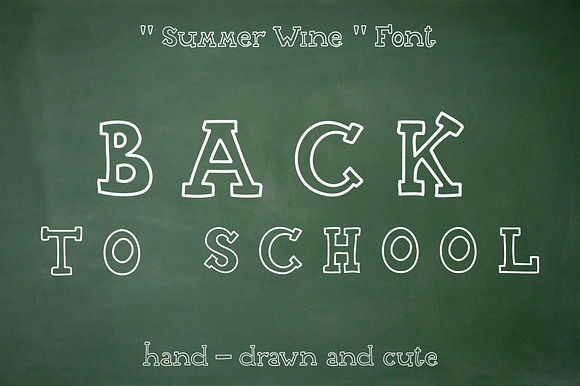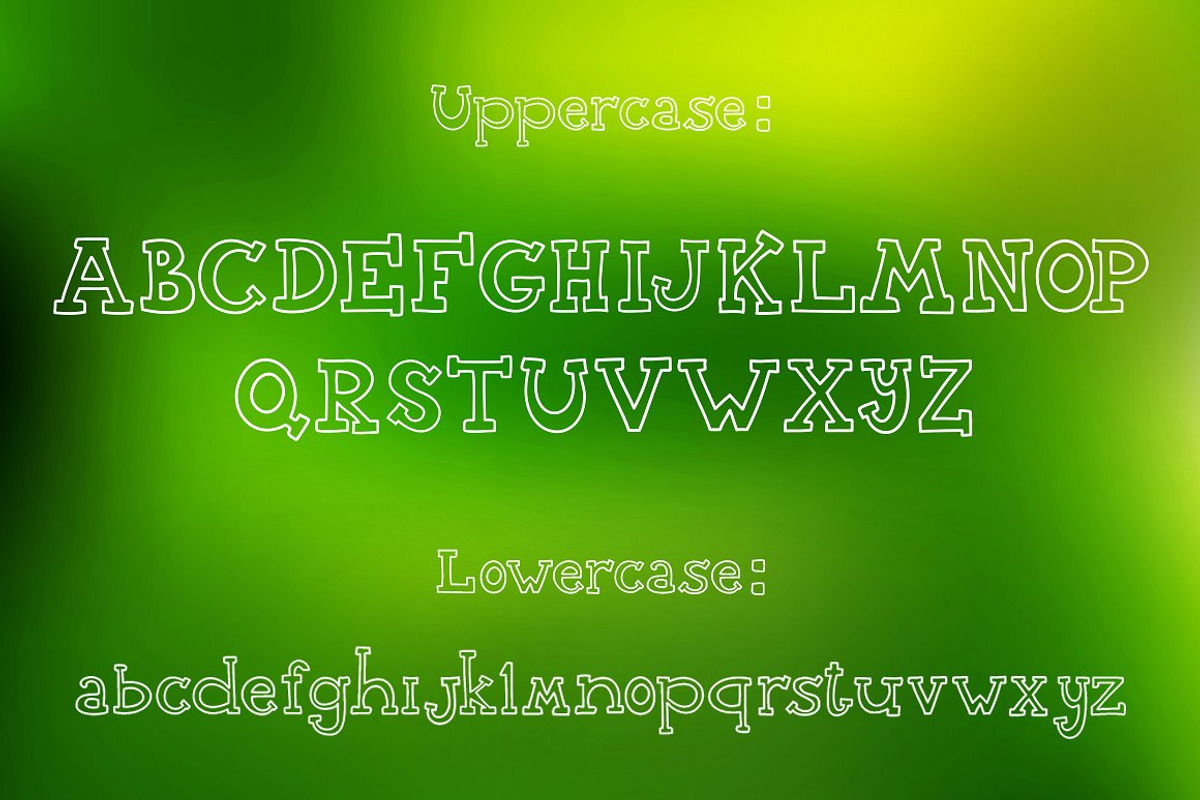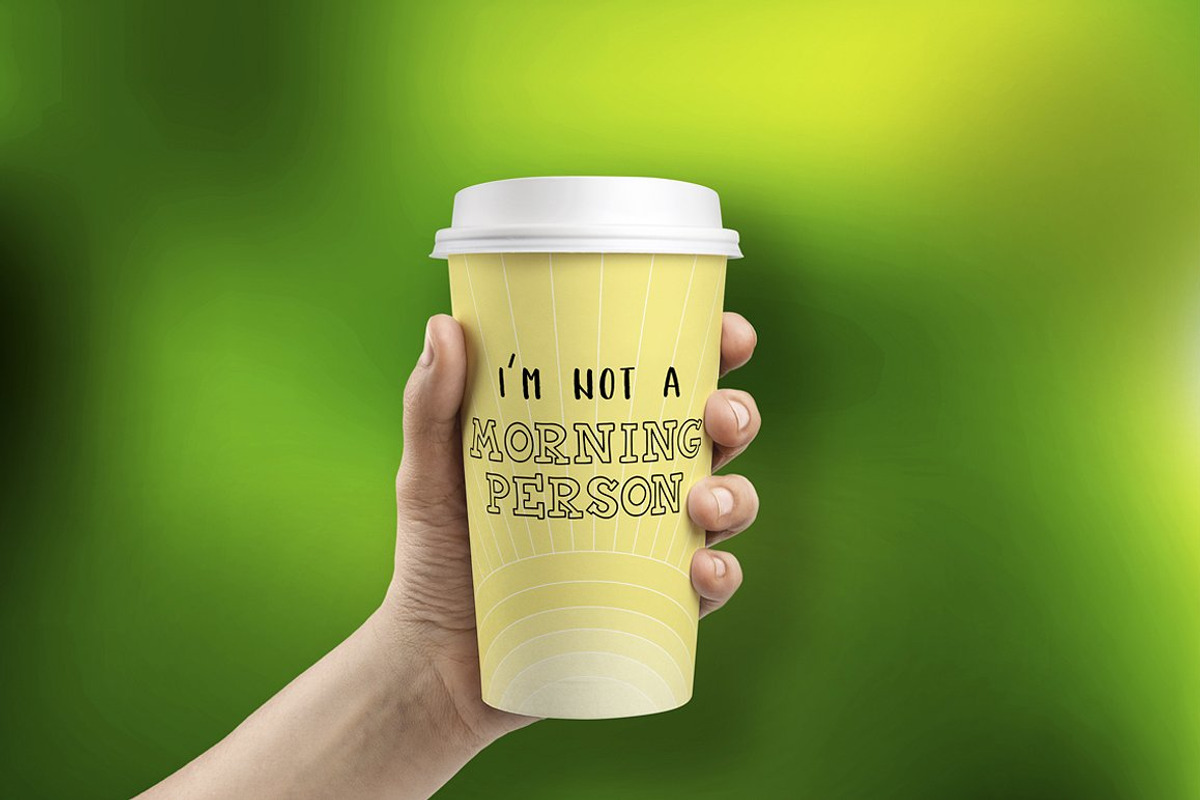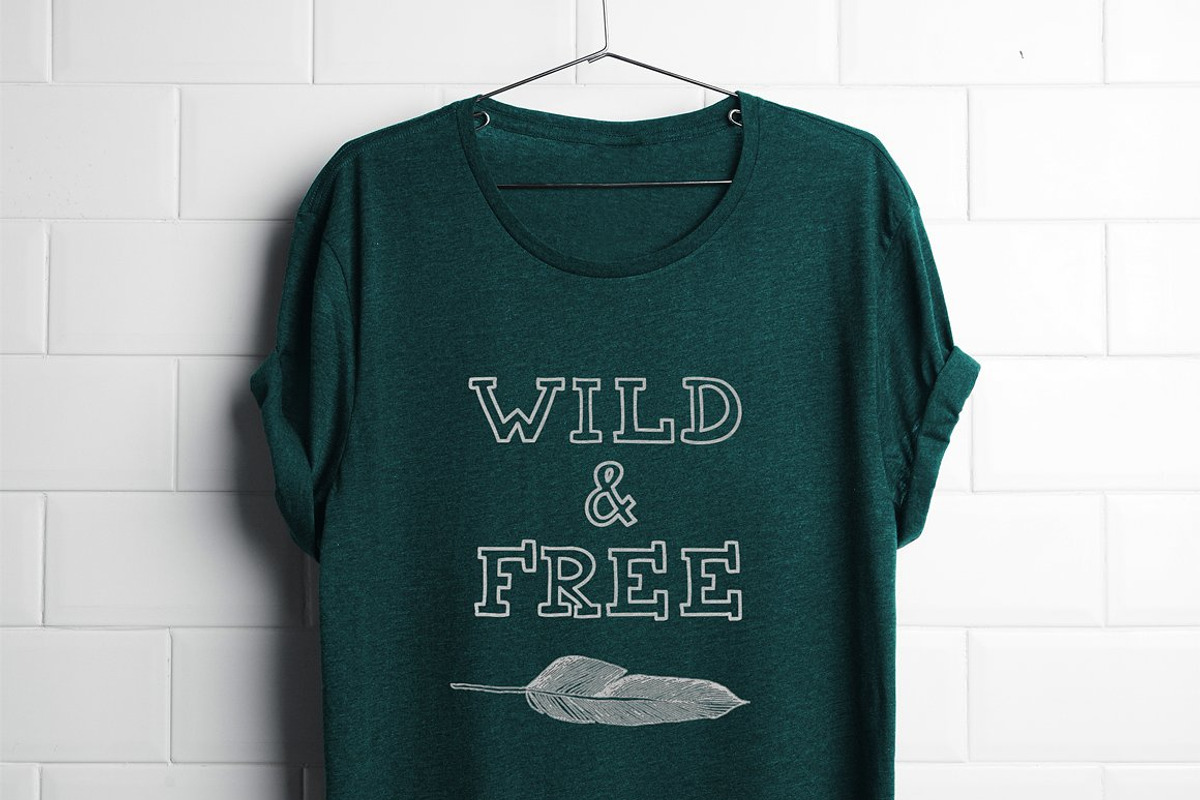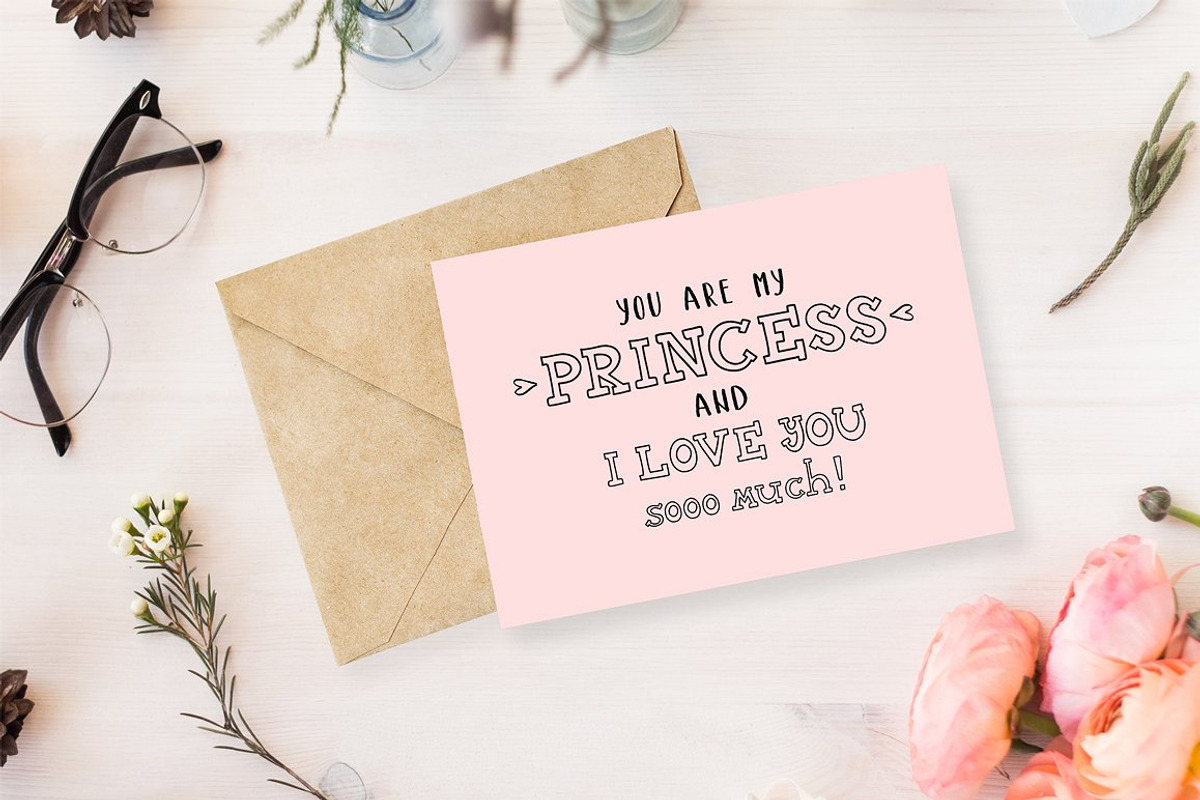
Summer Wine - hand drawn font
Meet this cool hand drawn TrueType font - SUMMER WINE! This hand drawn font contains capital, lowercase letters, numbers and most characters from your keyboard. It's perfect for modern products design, logo, t-shirt prints, postcards and so on.
- This hand drawn font contains capital, lowercase letters, numbers and most characters from your keyboard.